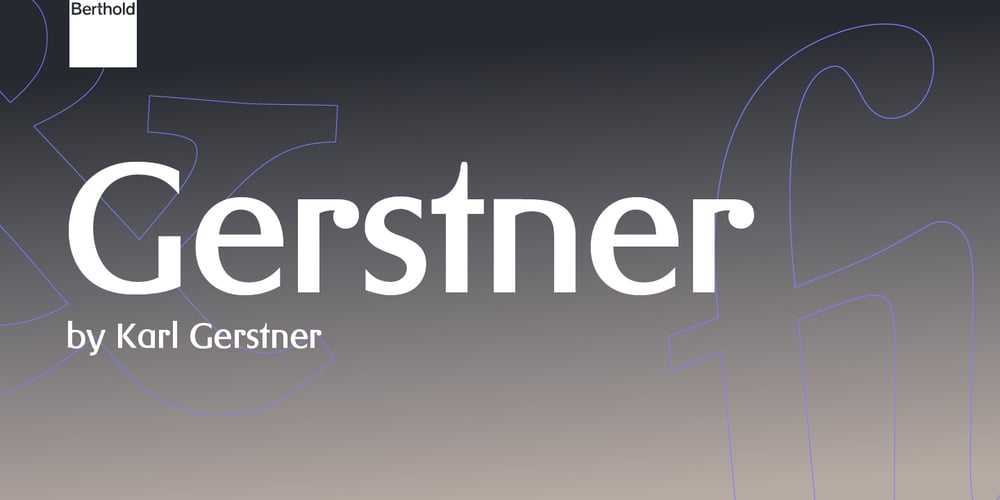
Gerstner
Gerstner font
Gerstner Font Family was designed by Karl Gerstner and published by Berthold. Gerstner contains 8 styles and family package options. Gerstner Next was designed by Dieter Hofrichter in 2007 based on Karl Gerstner’s 1987 design.